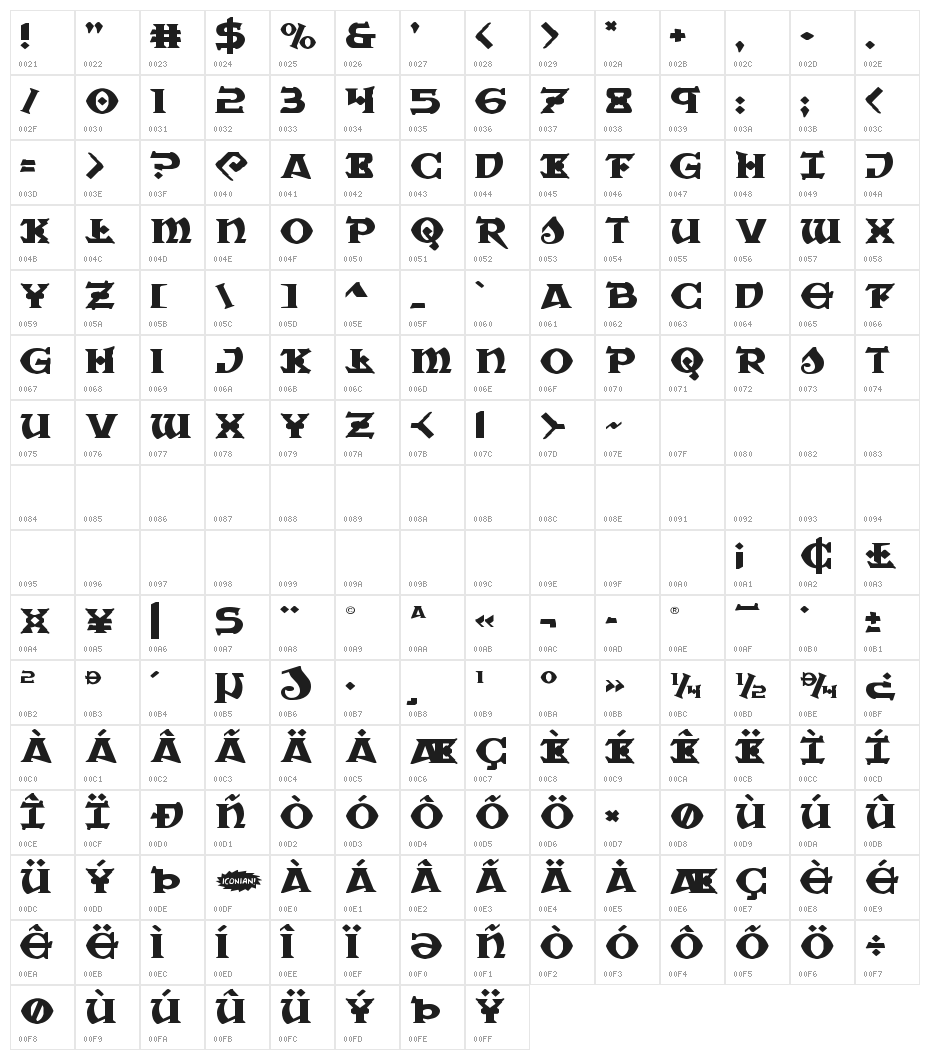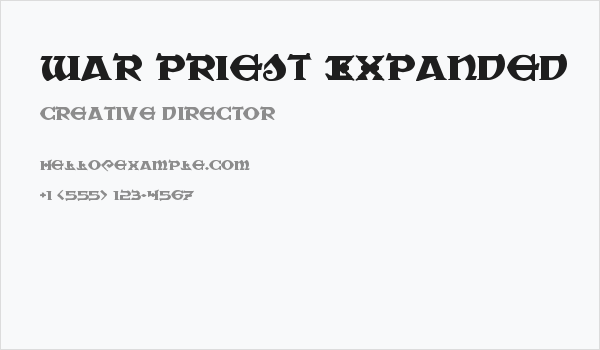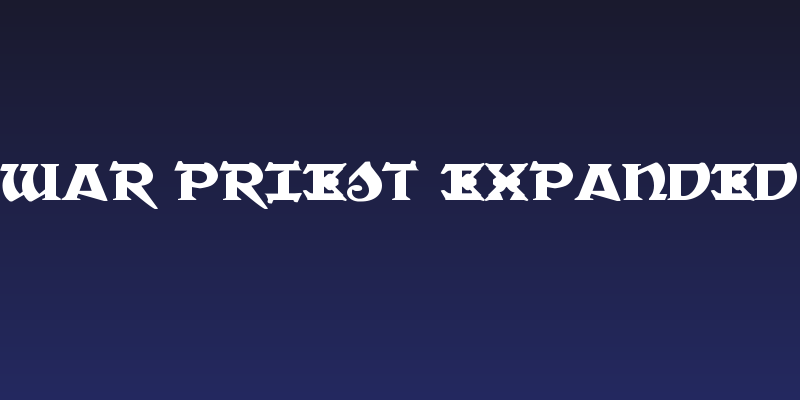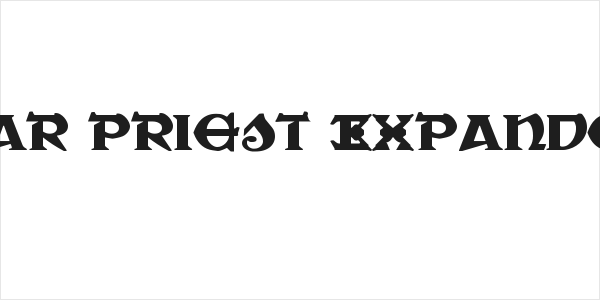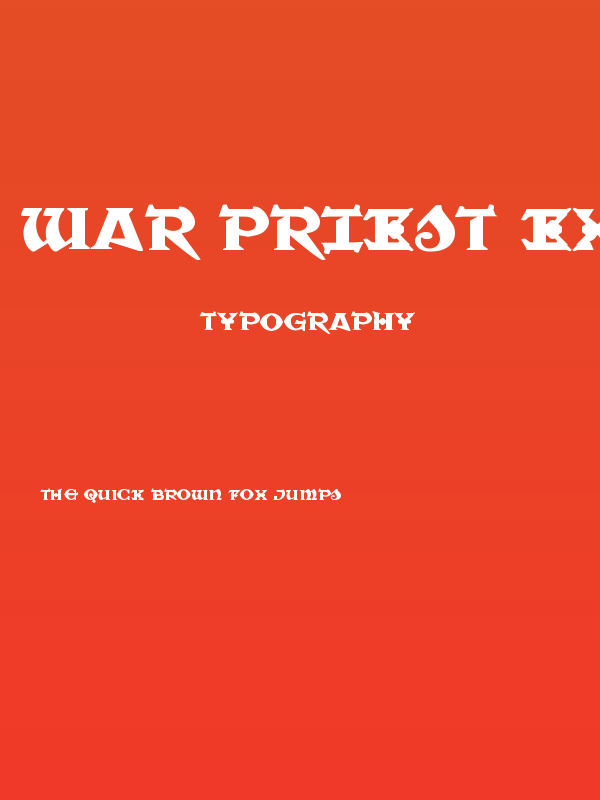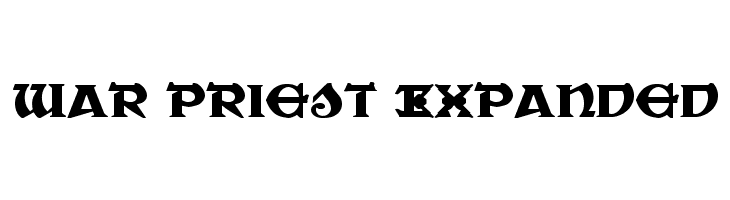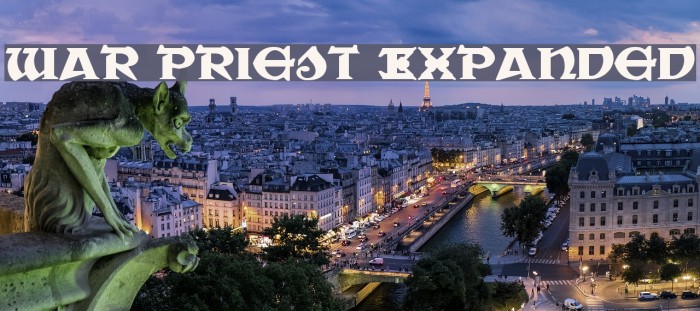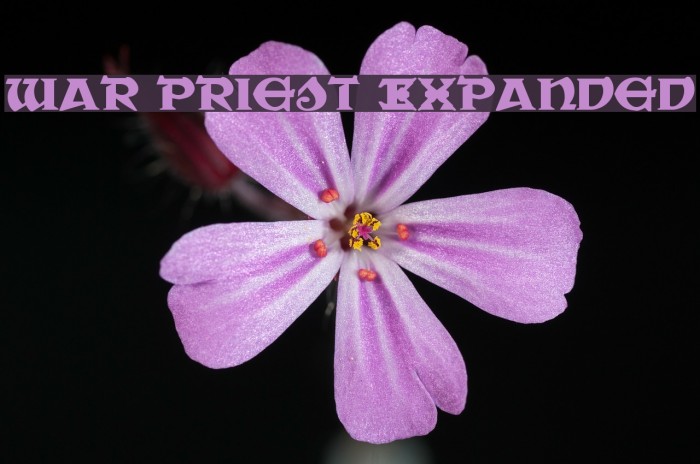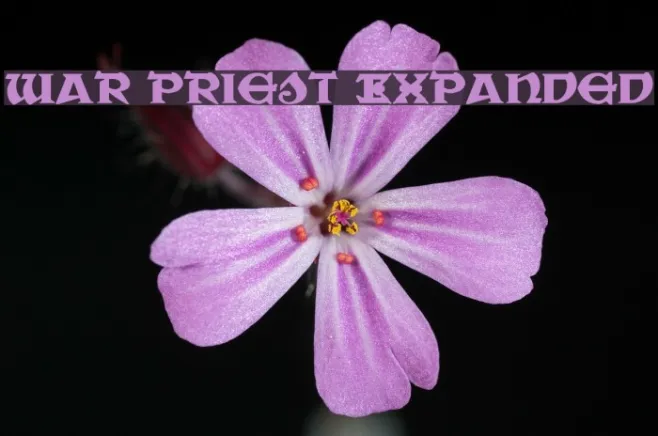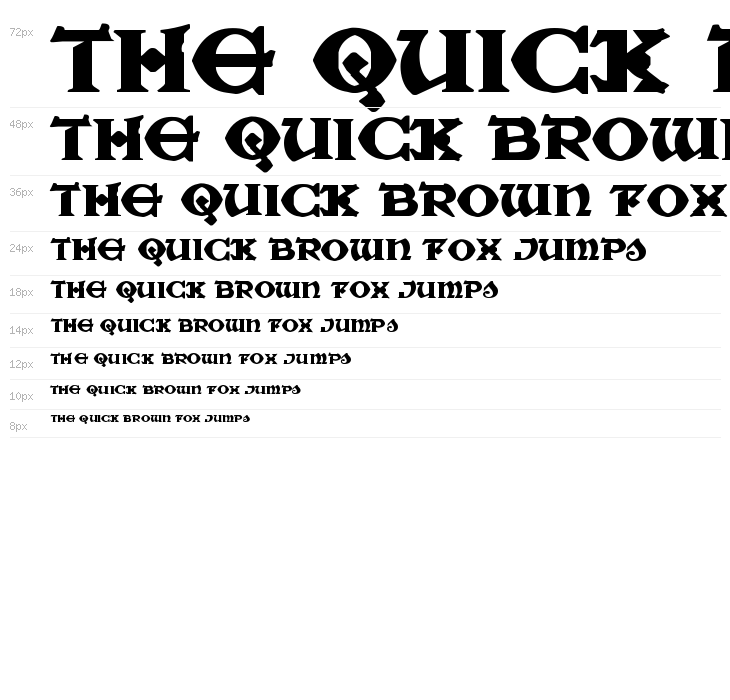
War Priest Expanded Font
War Priest Expanded Description
This font features a bold and striking design with sharp, angular edges and a medieval-inspired aesthetic. The uppercase and lowercase letters are crafted with a consistent thickness, giving it a uniform appearance. The numerals and special characters maintain the same boldness and angular style, ensuring a cohesive look across all characters. The font's unique style is reminiscent of ancient scripts, making it ideal for projects that require a historical or fantasy theme. Its expanded width allows for a strong presence, making it suitable for attention-grabbing headlines or titles.
| Overall Style | Medieval, Decorative |
| Proposed Projects | Ideal for use in fantasy book covers, medieval-themed posters, video game titles, and historical event flyers. |